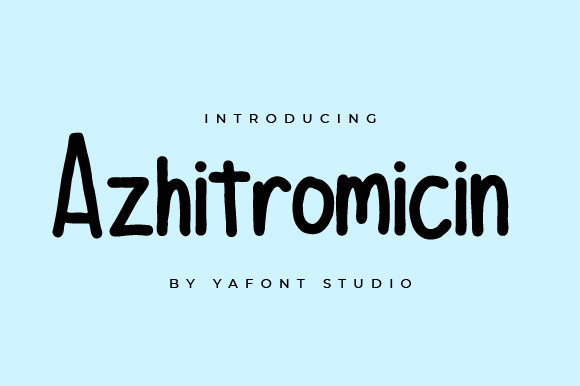
Discover the Charm of Azhitromicin Font: A Simple yet Unique Handwritten Style
Are you a designer or crafter looking for a font that can add a personal touch to your projects? Look no further than Azhitromicin Font, a simple and casual handwritten font that is making waves in the design world. With its natural and unique style, Azhitromicin Font is incredibly fitting to a large pool of designs, making it a versatile and valuable addition to any designer’s toolkit.
The Characteristics of Azhitromicin Font
Azhitromicin Font is a handwritten font that exudes a sense of simplicity and elegance. Its casual style makes it perfect for designs that require a personal touch, such as invitations, greeting cards, and social media graphics. The font’s natural and unique style is characterized by its:
- Fluid strokes: Azhitromicin Font features fluid strokes that give it a natural, handwritten feel.
- Simple letterforms: The font’s letterforms are simple and easy to read, making it perfect for body text and headings.
- Unique personality: Azhitromicin Font has a unique personality that sets it apart from other handwritten fonts.
The Benefits of Using Azhitromicin Font
So, why should you choose Azhitromicin Font for your next design project? Here are just a few benefits of using this versatile font:
- Versatility: Azhitromicin Font is incredibly versatile and can be used in a wide range of designs, from digital graphics to print materials.
- Ease of use: The font is easy to read and works well in both large and small sizes, making it perfect for body text and headings.
- Unique style: Azhitromicin Font’s unique style makes it stand out from other fonts, adding a personal touch to your designs.
- Time-saving: With Azhitromicin Font, you can create professional-looking designs in no time, saving you time and effort.
How to Use Azhitromicin Font in Your Designs
Using Azhitromicin Font in your designs is easy. Here are a few tips to get you started:
- Pair it with other fonts: Azhitromicin Font pairs well with other fonts, such as sans-serif fonts, to create a unique and interesting contrast.
- Experiment with colors: The font works well in a variety of colors, from bold and bright to soft and pastel.
- Use it for headings and body text: Azhitromicin Font is perfect for both headings and body text, making it a great all-around font for your designs.
Design Ideas that Showcase Azhitromicin Font
Azhitromicin Font is a versatile font that can be used in a wide range of designs. Here are a few ideas to get you started:
- Invitations and greeting cards: The font’s casual style makes it perfect for invitations and greeting cards.
- Social media graphics: Azhitromicin Font works well in social media graphics, such as Facebook posts and Instagram stories.
- Blog posts and articles: The font is easy to read and works well in blog posts and articles.
- Branding and packaging: Azhitromicin Font can be used in branding and packaging designs to add a personal touch.
Azhitromicin Font is a simple and casual handwritten font that is perfect for designers and crafters looking to add a personal touch to their projects. With its natural and unique style, Azhitromicin Font is incredibly fitting to a large pool of designs, making it a versatile and valuable addition to any designer’s toolkit. Whether you’re creating invitations, social media graphics, or blog posts, Azhitromicin Font is a great choice.